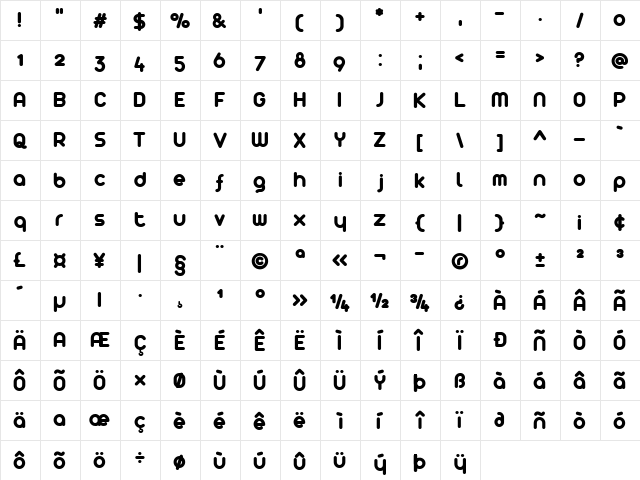
Arista 2.0 Regular
| Foundry | studio kmzero |
| Designer | Francesco Canovaro |
Design Context for Arista 2.0 Typeface
Arista 2.0 offers clean, dependable letterforms without strong stylistic allegiance, making it a practical choice for designers who need flexibility.
Pro Tip: Use Arista 2.0 in both headline and body roles to test its range before committing to a single application.